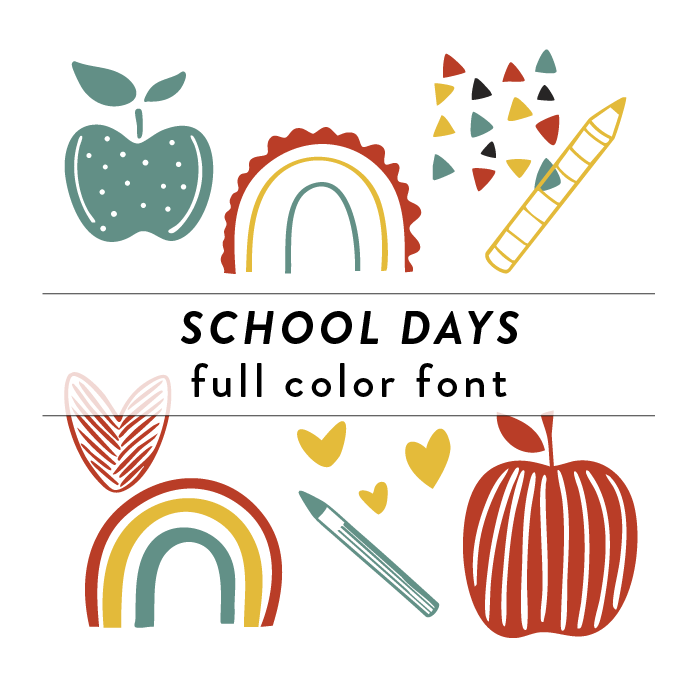
School Days Full Color Font is a playful and vibrant font design perfect for educational materials, school projects, menus, and religious publications. With its bold and colorful style, this font adds a fun and engaging touch to any design. Ideal for capturing attention and creating a lively atmosphere. Create school projects and gift for your favorite teacher! This font is a OTF craft font that will appear in color only when used with the silhouette software.